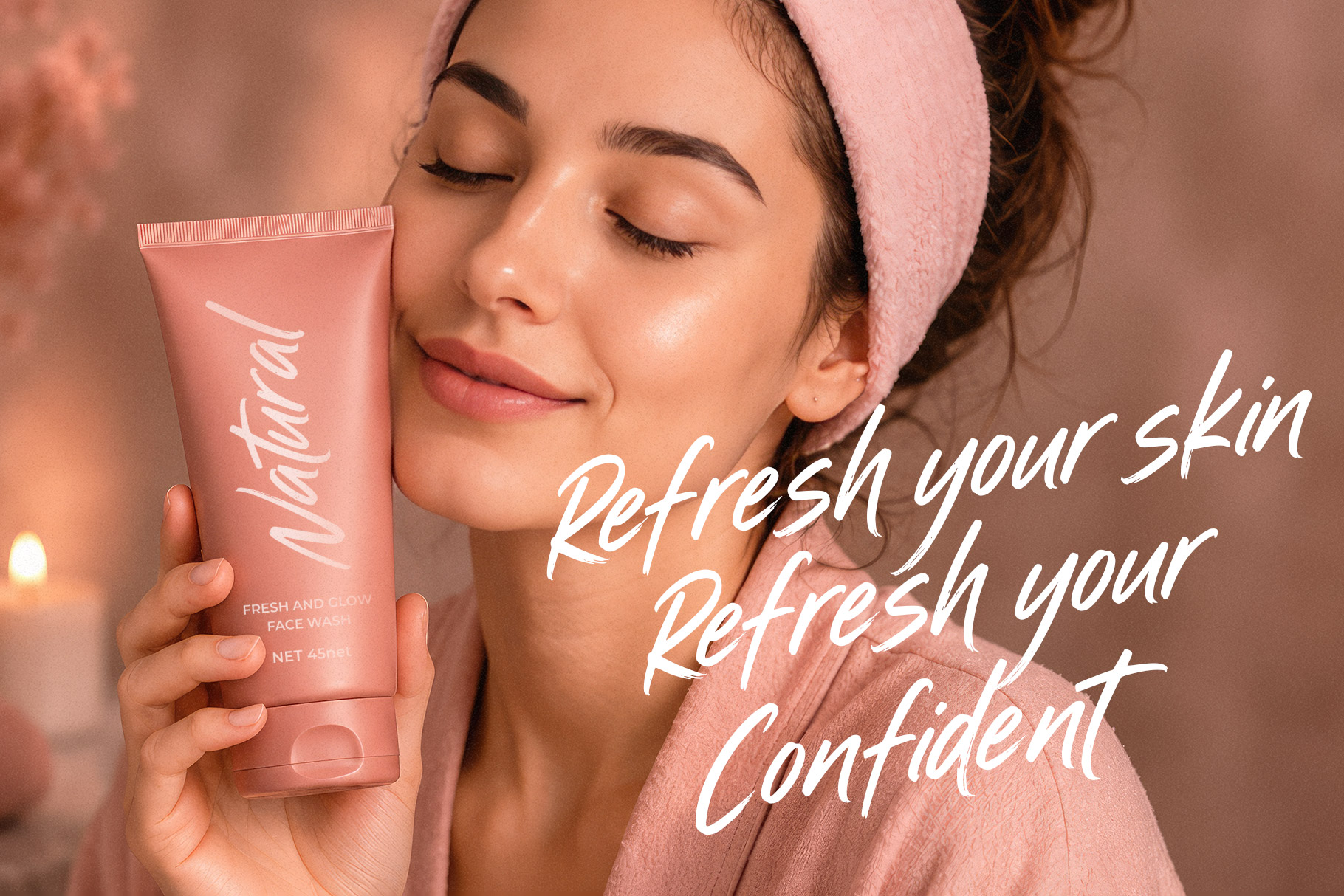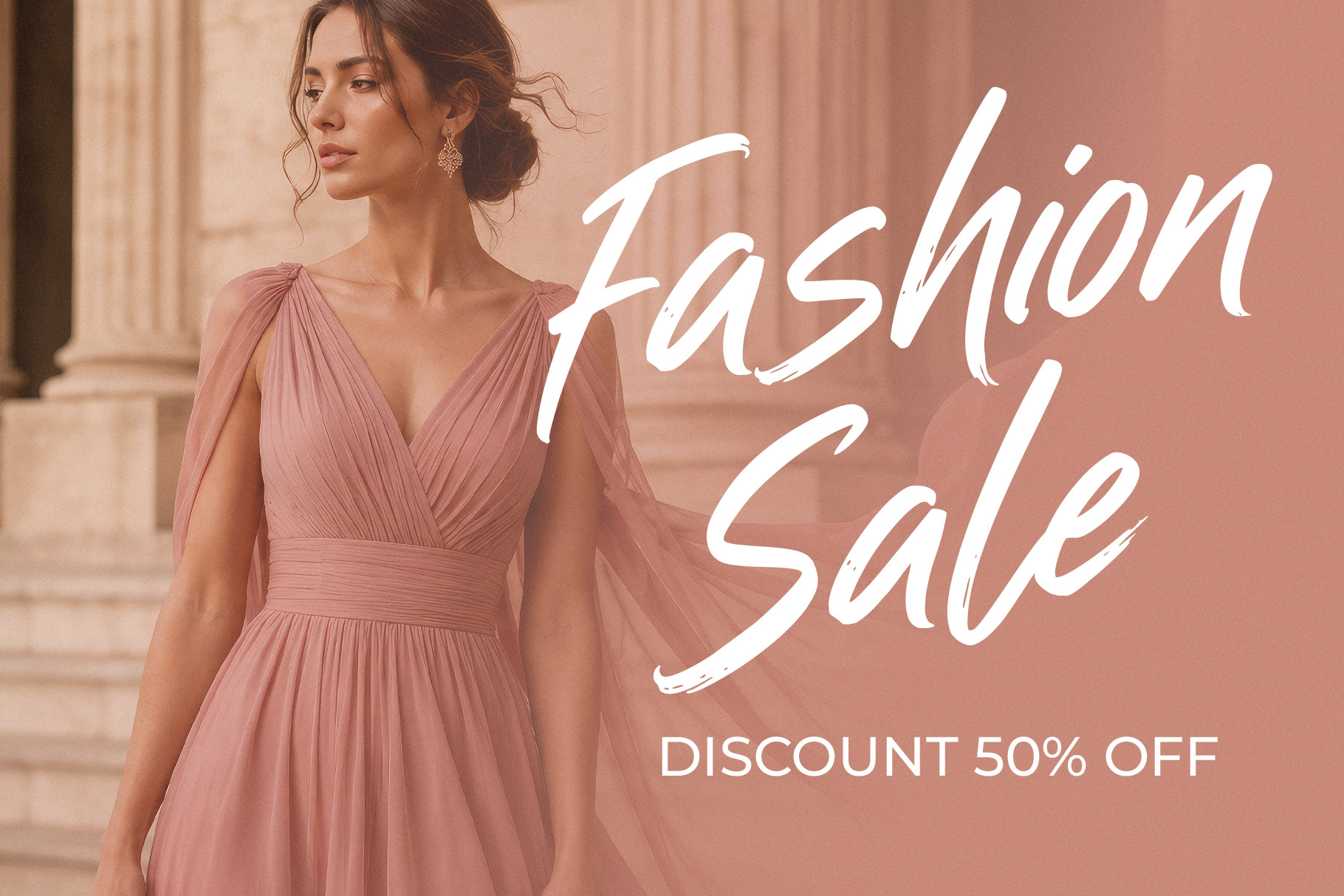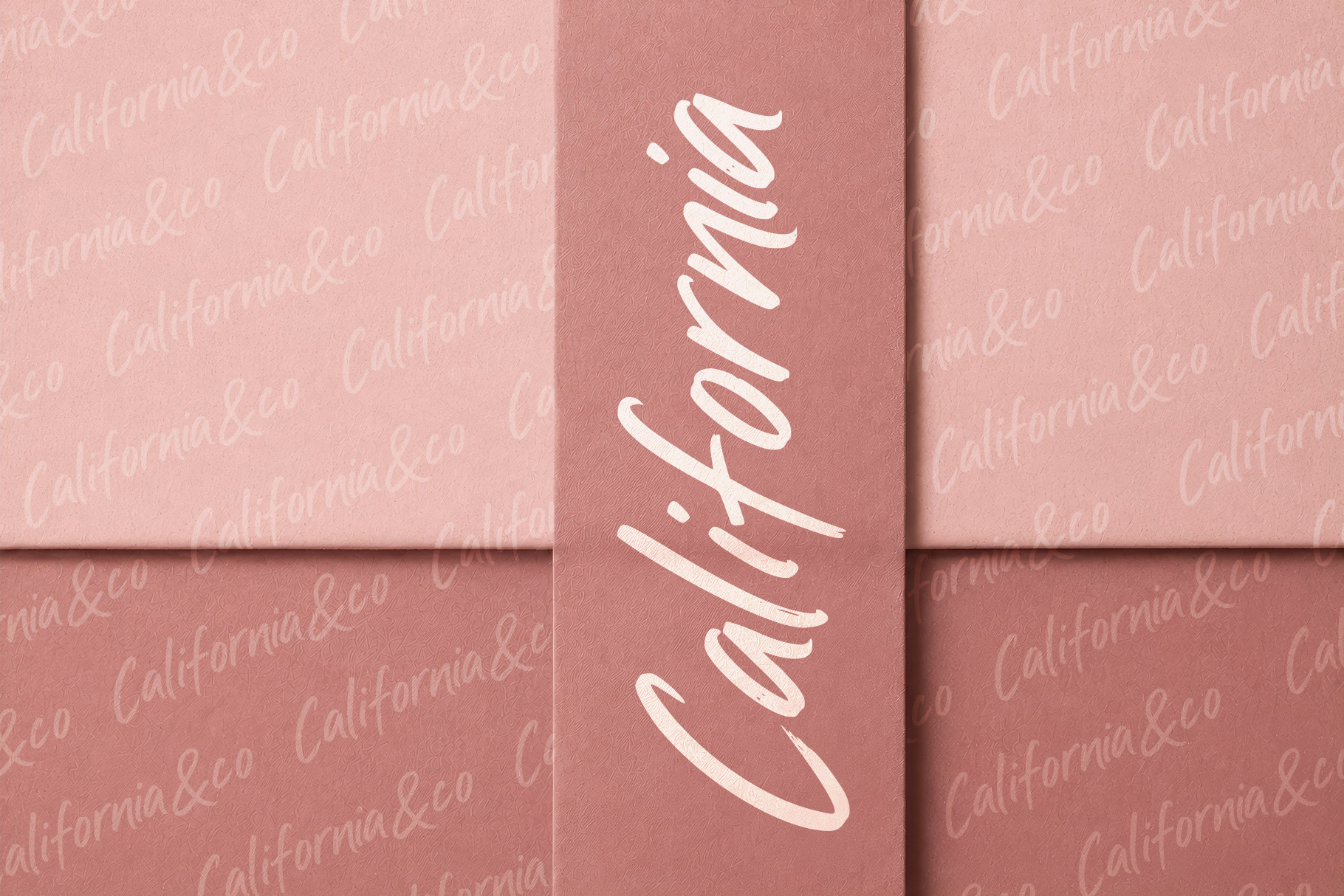
Shettary is modern brush font that embodies confidence, creativity, and effortless elegance. Designed with bold hand-painted strokes and authentic brush textures, this typeface captures the natural rhythm of handwritten lettering.
Shettary Modern Brush Font